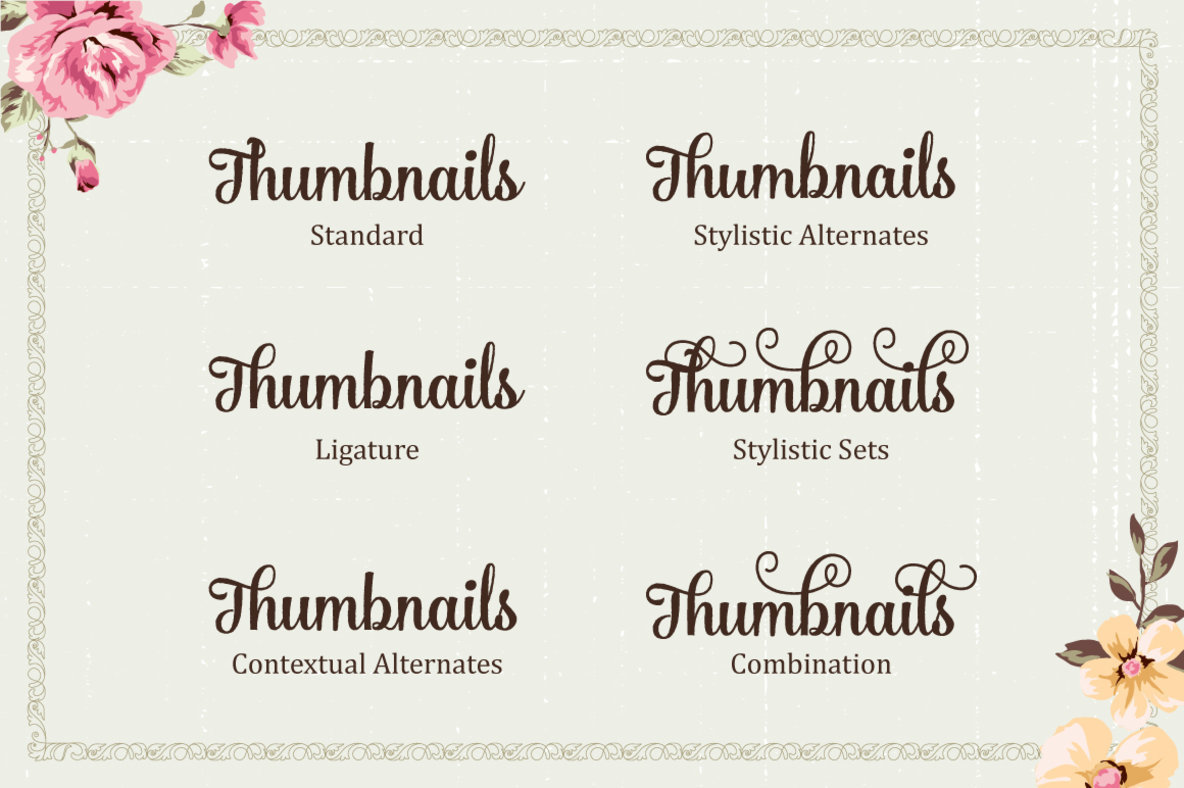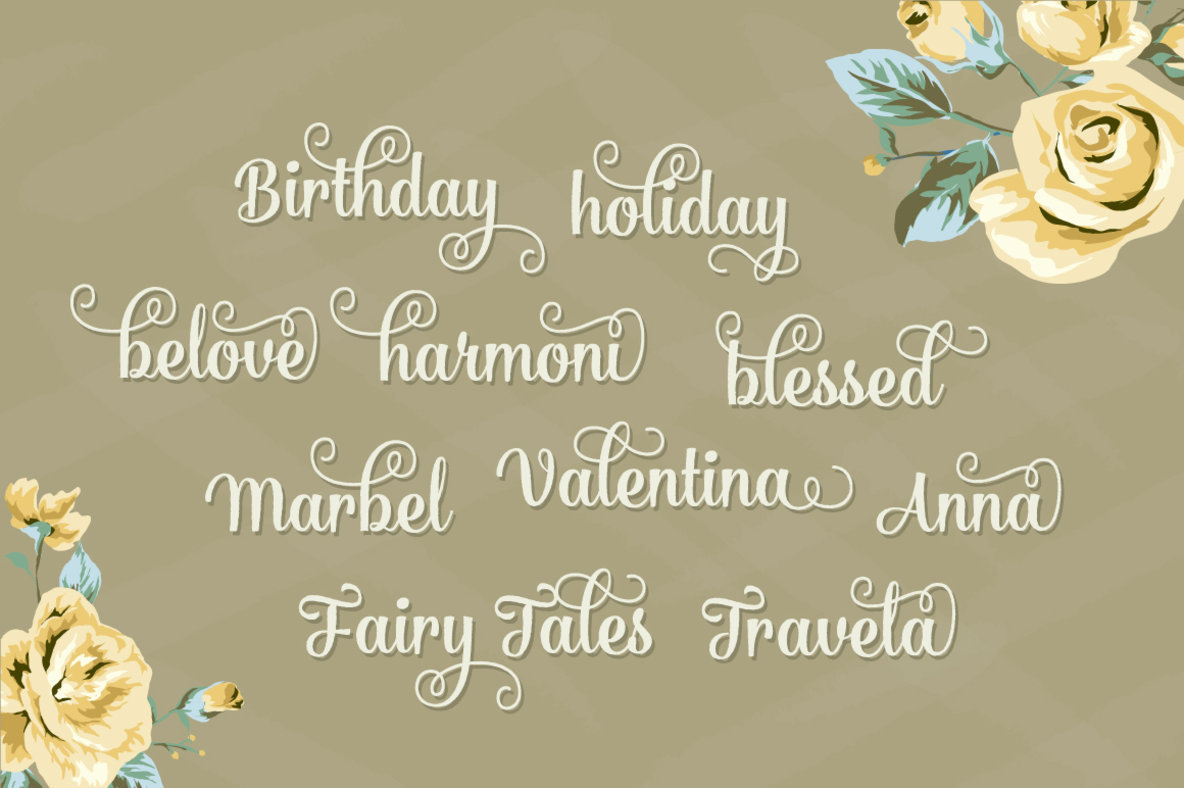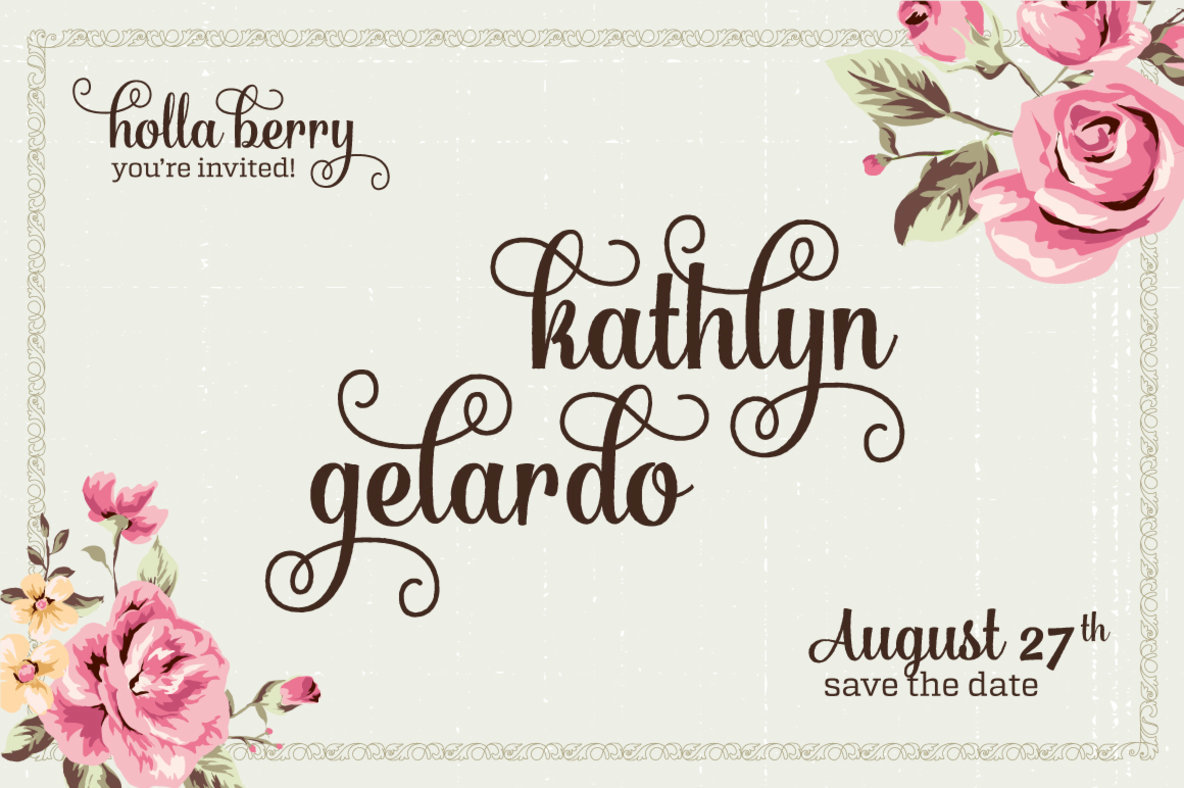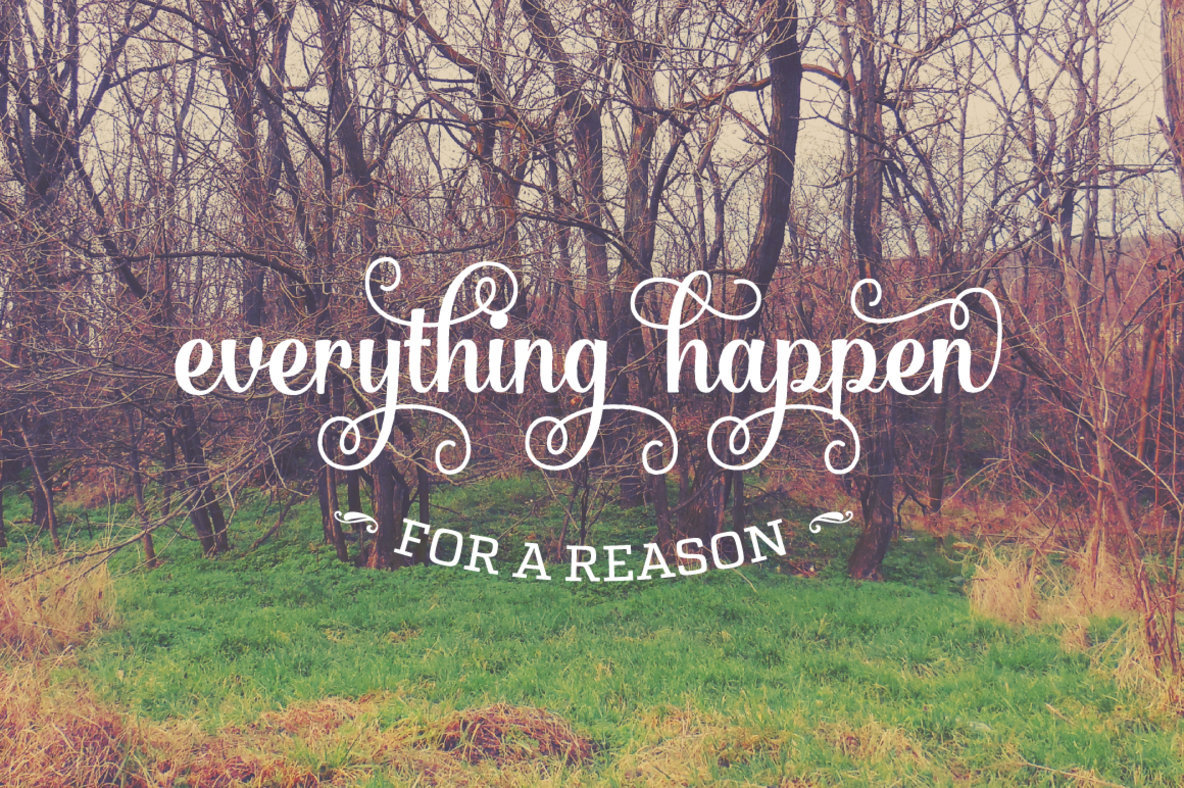
Bulgary Font
Bulgary combines the fluidity of brush lettering with the authenticity of traditional handwriting to offer a surreal script that meets the demands of diverse design projects. Its adaptability allows seamless pairing with other typefaces, making it an excellent choice for projects such as wedding invitations, vintage designs, greeting cards, posters, book covers, and illustrations. This script boasts a rich set of 289 glyphs with over 100 alternate characters, providing ample opportunities to customize and enhance your design. Organized into various OpenType features like Ligatures, Contextual Alternates, Stylistic Alternates, and Stylistic Sets, it allows you to create unique visual styles. To fully utilize these alternates, employ an OpenType-savvy program such as Adobe Illustrator or Adobe InDesign.Bulgary: A Surreal Script with Versatile Flexibility